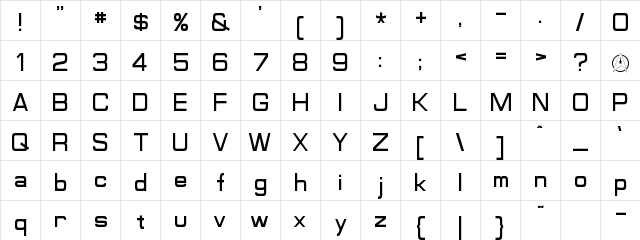
Microgramma Trek Extended Regular
| Designer | Neale Davidson |
Design Context for Microgramma Trek Extended Typeface
Microgramma Trek Extended is a composed and adaptable typeface that performs quietly and consistently across a wide range of design contexts.